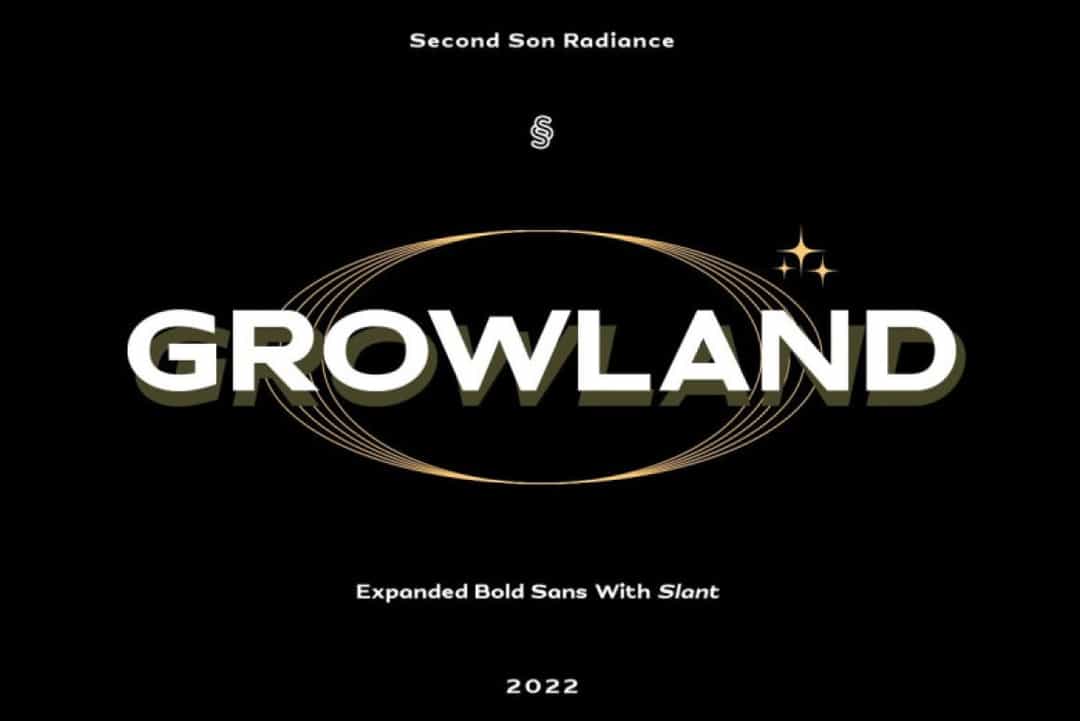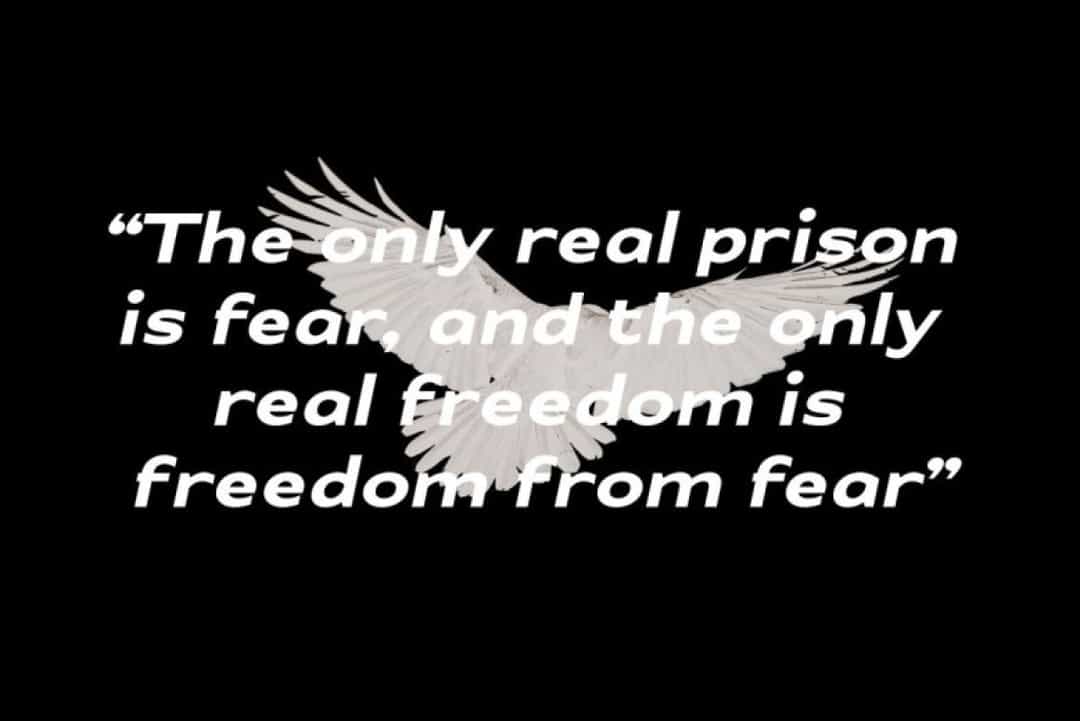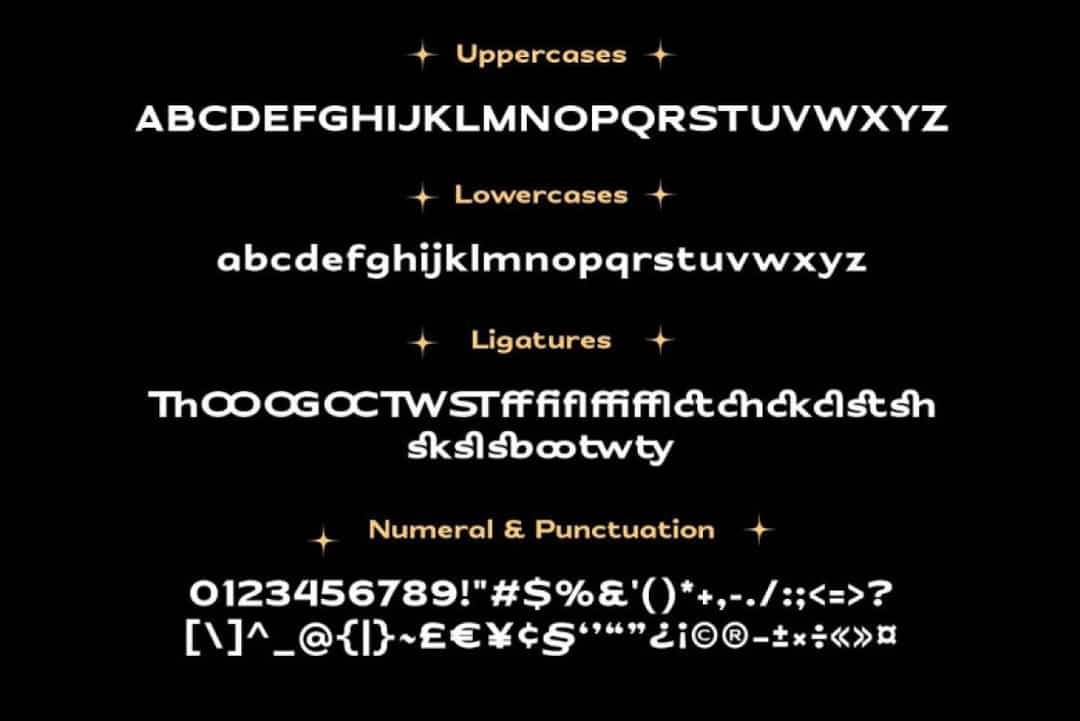
Growland can be described as an Expanded Bold Sans Typeface that’s perfect for weighty headlines and titles, or any graphic design project requiring an even tone. Perfect for use on cover books or in headline news coverage; includes full characters as well as multilingual support.